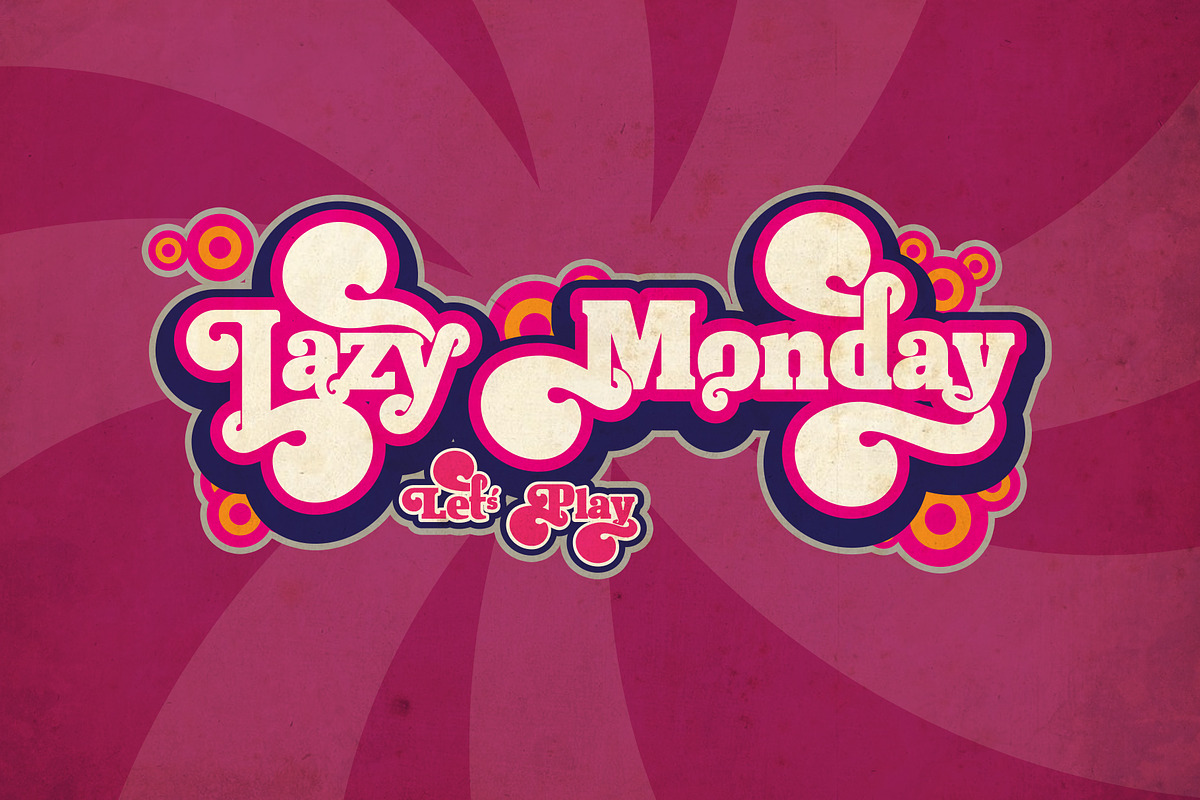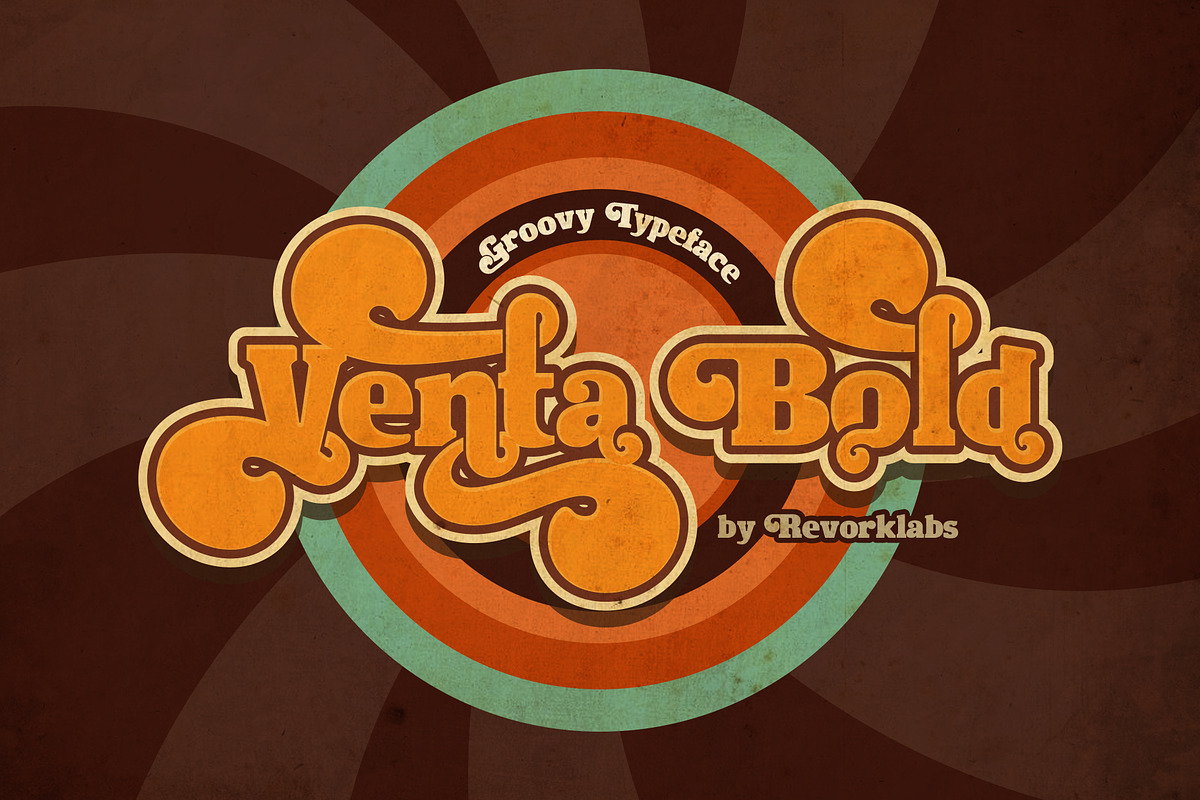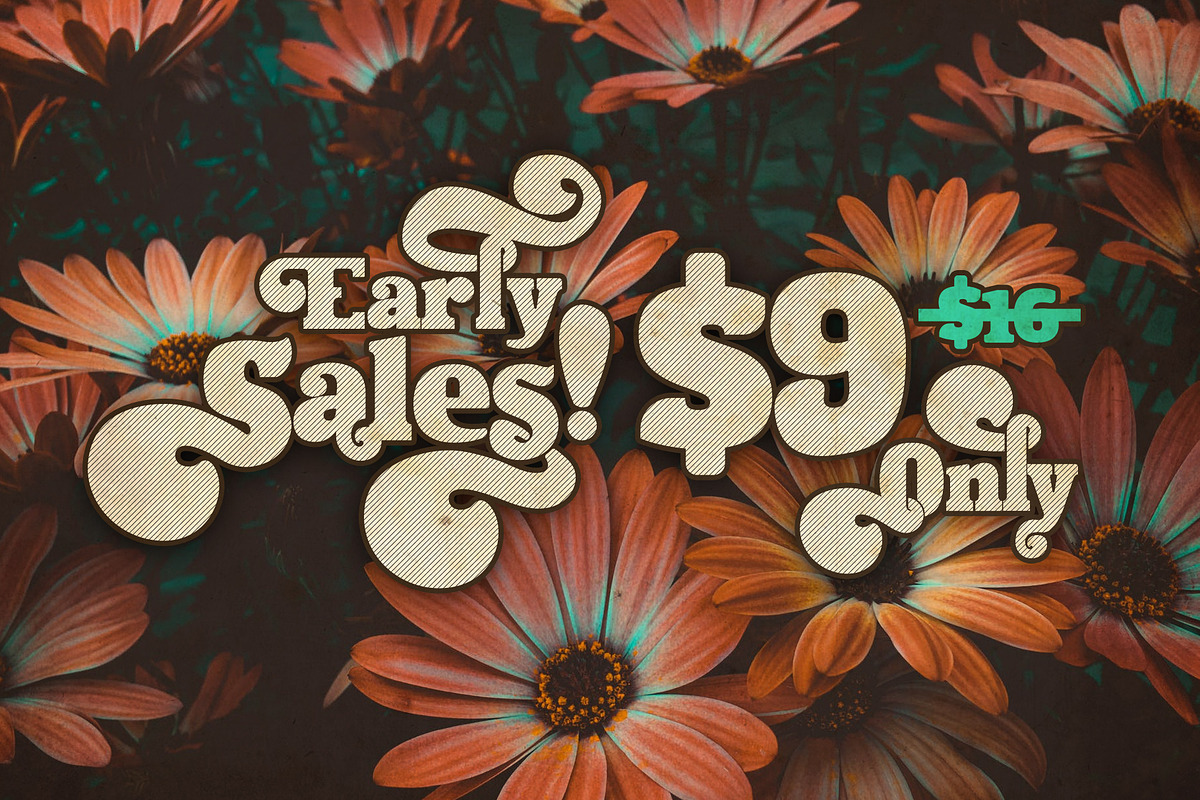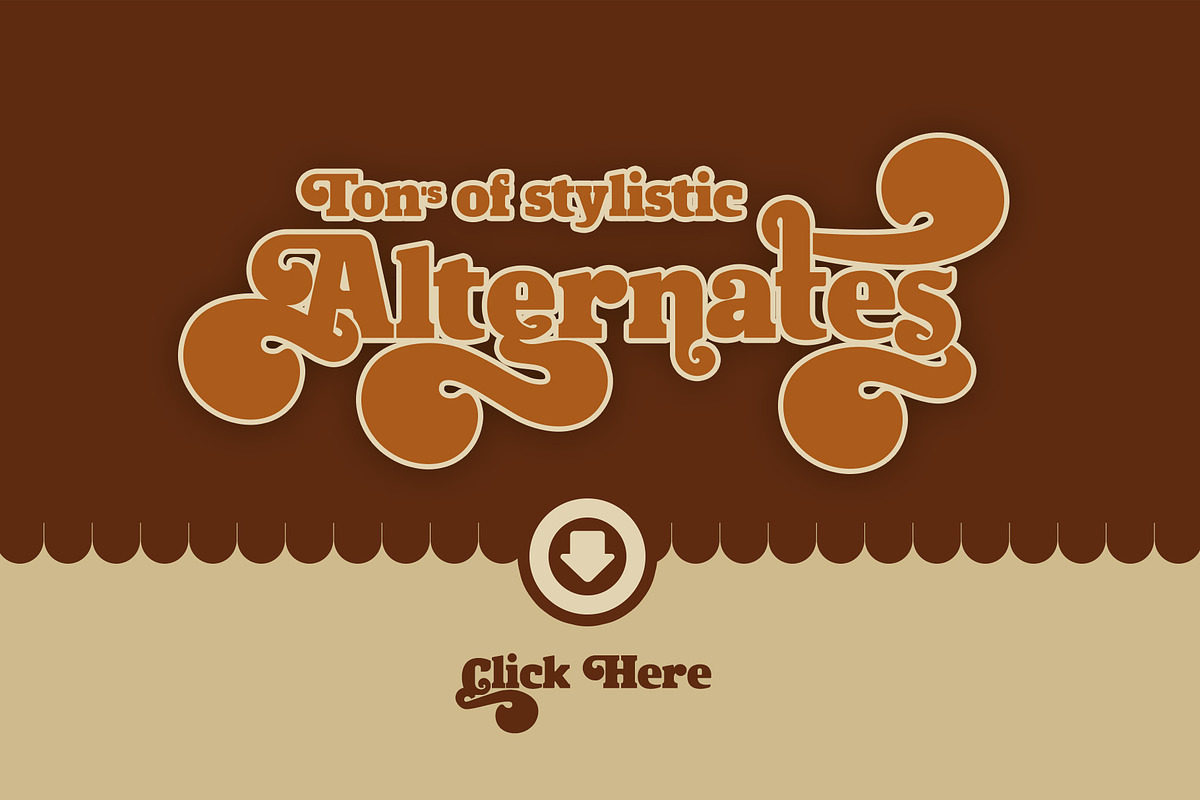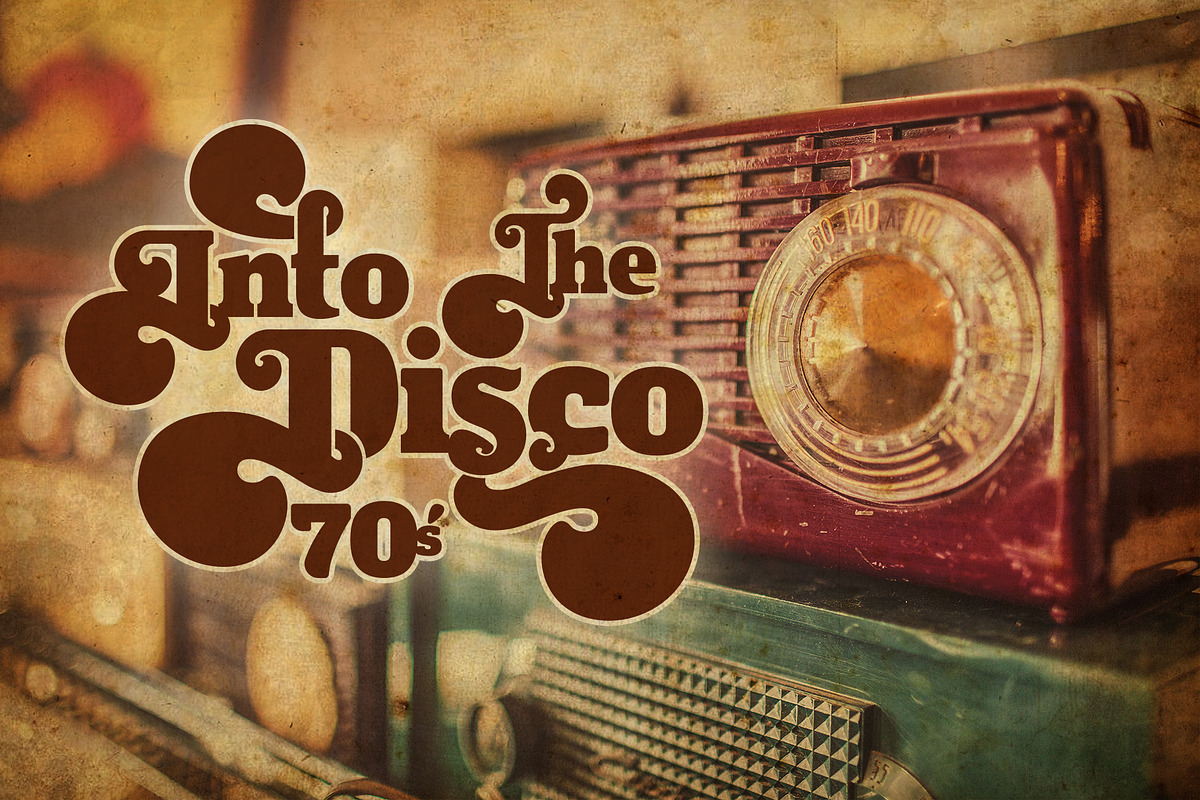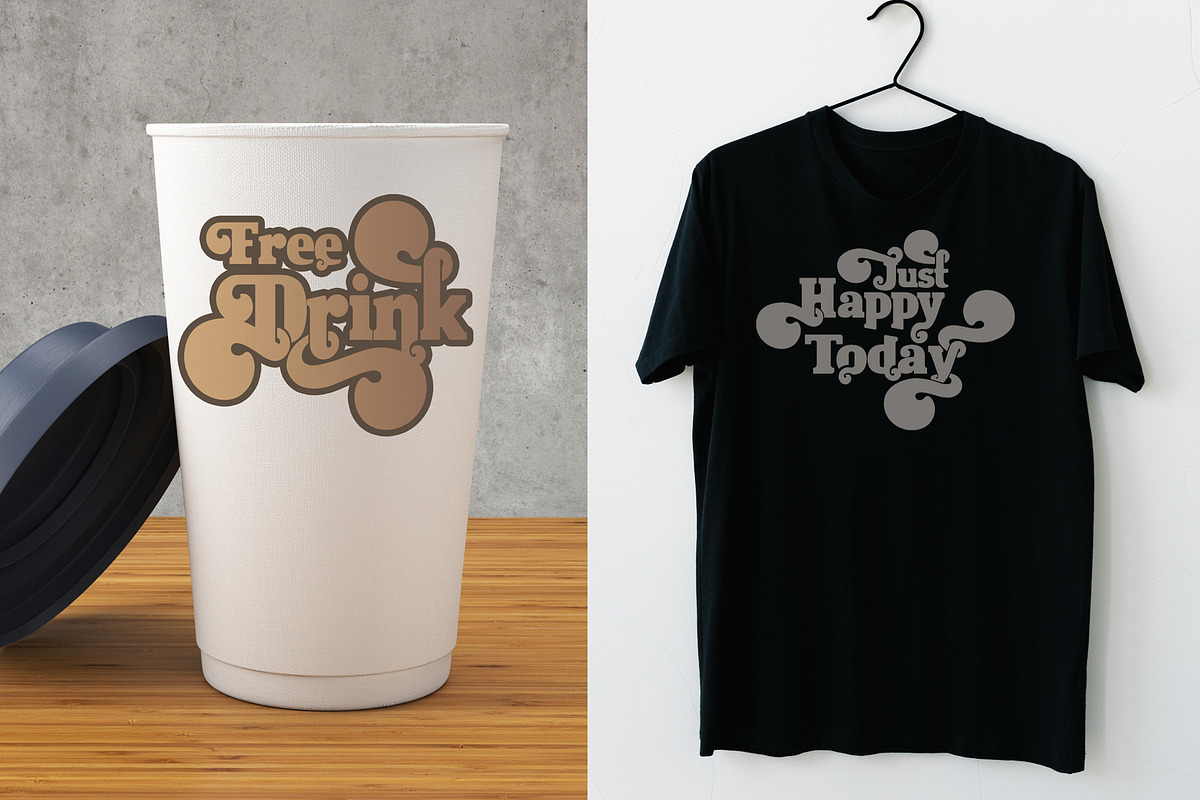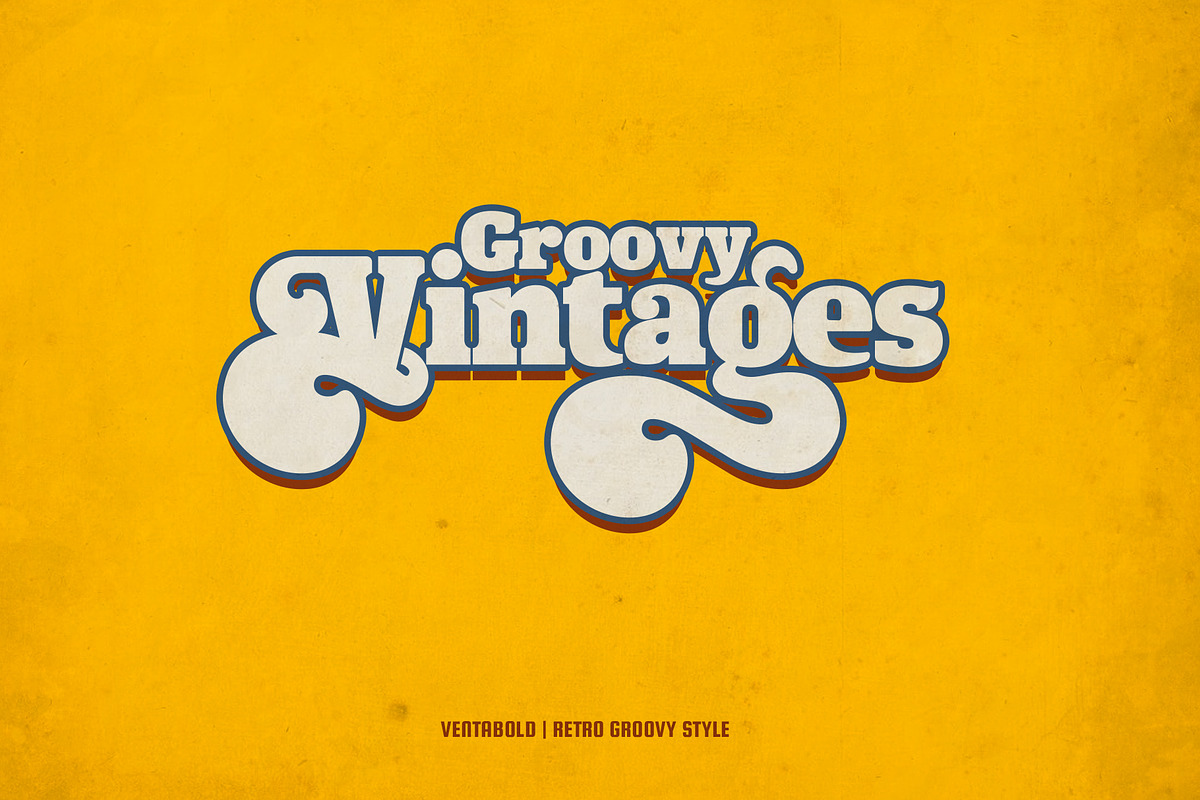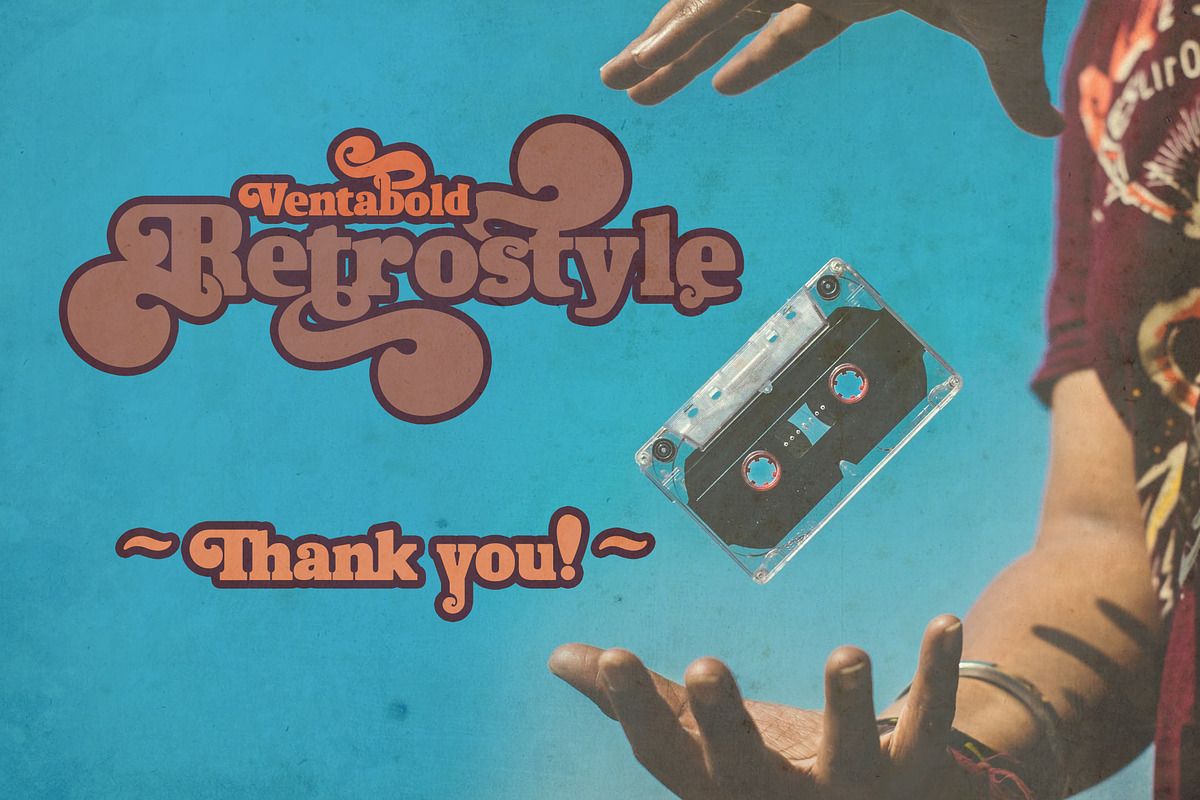
Ventabold - Retro Groovy Font Style
Hi, I introduce a new amazing retro pop art display typeface and the name is Ventabold, it came with open type features such stylistic alternates & some of ligatures. Ventabold is suit for logo, headings, branding, magazine, cover album, book cover, game title, apparel design, quotes, invitations, flyer, poster, greeting cards, product packaging, printed quotes, etc.
- there are tons of Alternates ghlyp you can play with including swash.